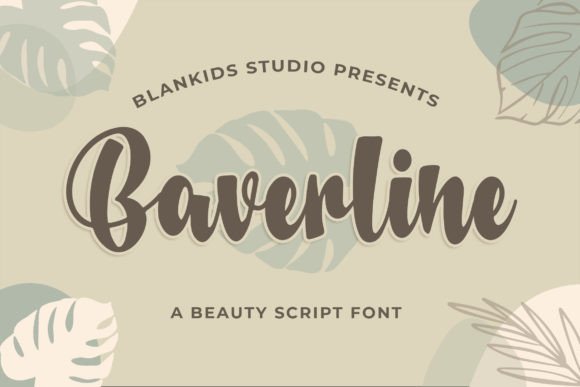
Introducing Baverline Font, the epitome of elegance and sophistication in the world of script fonts. Crafted with meticulous attention to detail by the renowned Blankids Studio, Baverline is a visual masterpiece that exudes class, modernity, and boundless creative possibilities.
Immerse yourself in the captivating world of Baverline, where letters dance with grace and poise, leaving an unforgettable impression on your audience. Its bold strokes and sweeping curves lend an air of authority and refinement, making it the perfect choice for logos, branding, and any project that demands a touch of luxury.
Unleash your creativity with Baverline's versatility. Whether you're designing wedding invitations, crafting social media posts that captivate your audience, or creating stationery that exudes elegance, this font is your perfect companion. Its timeless charm and adaptability make it suitable for a wide range of projects, ensuring that your designs stand out from the crowd.
With Baverline, you'll discover a font that's not just aesthetically pleasing but also incredibly user-friendly. Its smooth flow and impeccable kerning make it a joy to work with, allowing you to create stunning designs effortlessly. Experience the seamless integration of Baverline into your creative workflow and watch as your projects come to life with unparalleled beauty and professionalism.
Baverline is more than just a font; it's an investment in your creative journey. Its timeless design and endless applications make it a font that will accompany you through countless projects, consistently delivering exceptional results. As your creativity evolves, Baverline will grow with you, adapting to new challenges and inspiring you to push the boundaries of your imagination.
Seize the opportunity to elevate your designs to new heights with Baverline, the font that will transform your creative vision into reality. Don't let this remarkable font pass you by. Embrace its allure and witness the transformation of your projects into masterpieces that capture hearts and leave a lasting impact.